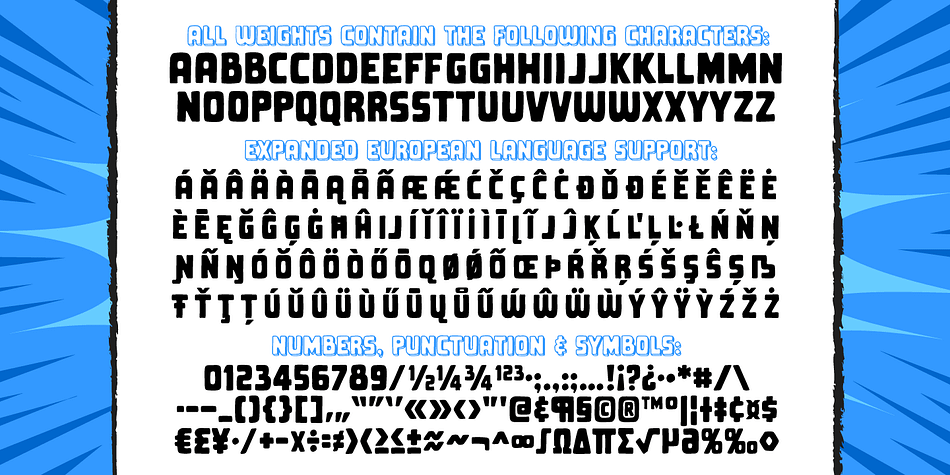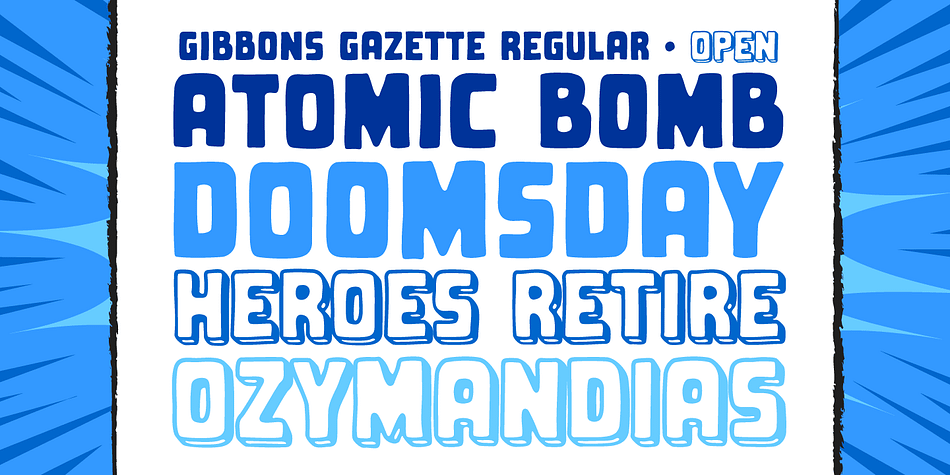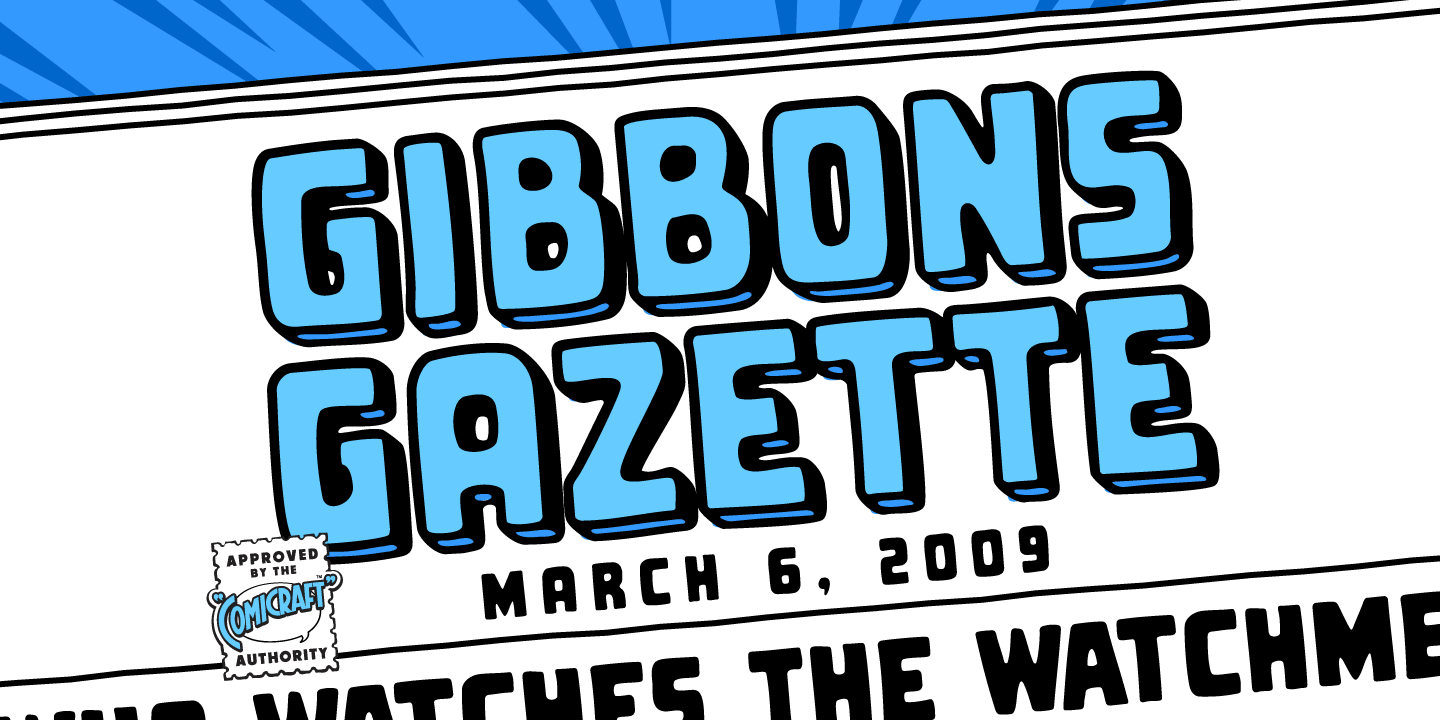
Designed by John Roshell, Gibbons Gazette is a display sans font family. This typeface has two styles and was published by Comicraft.
HOLD THE FRONT PAGE! STOP THE PRESSES! We have a new Headline for our Cover Story! DAVE GIBBONS is all over the tabloids, the trades AND the quality papers today. Yes, it’s the opening of the WATCHMEN movie, but we have a much BIGGER story; the REAL scoop—and we’re announcing it in 72 point type… yes, there’s a new addition to the Dave Gibbons family, and our editorial staff have the baby’s name and our paparazzi have the pictures! Dave’s new little sprog is called… GAZETTE. Man, that kid is gonna get teased at school, Dave.